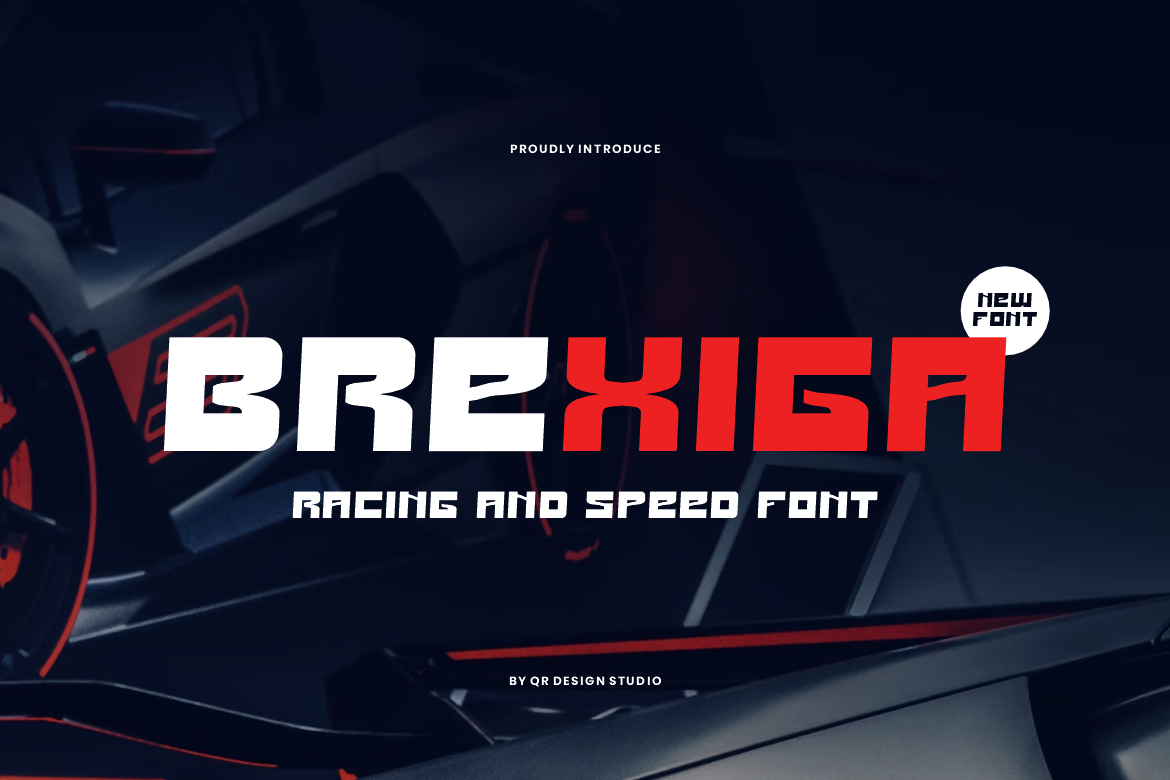
Brexiga - Speed & Racing Font
Brexiga Font is a bold and authentic display font. The font is suitable for any branding project like poster, logo, sport, and many more. Outstanding in a wide range of contexts.